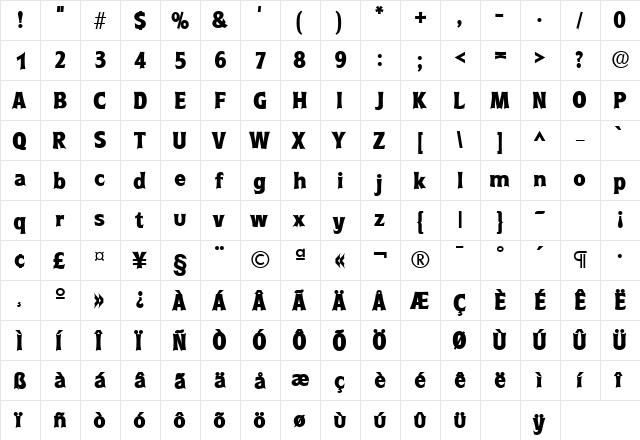
RoundestLH Bold Font Preview
RoundestLH Bold
RoundestLH Bold Font Details
Design Context for RoundestLH Typeface
RoundestLH uses gentle rounded endings to create a warm, inviting typographic personality — less corporate than geometric sans, more refined than playful display fonts. Its bold stroke weight gives it real presence on the page.
A natural fit for tech startups, health and wellness brands, children's products, and friendly consumer apps.
Font Pairing: Pairs well with a rounded or humanist sans for body copy, maintaining the friendly tone without relying on RoundestLH to carry extended reading.
Pro Tip: Pair RoundestLH with a geometric sans for a balanced system — the rounded softness works as a warm counterpoint to harder-edged companions.